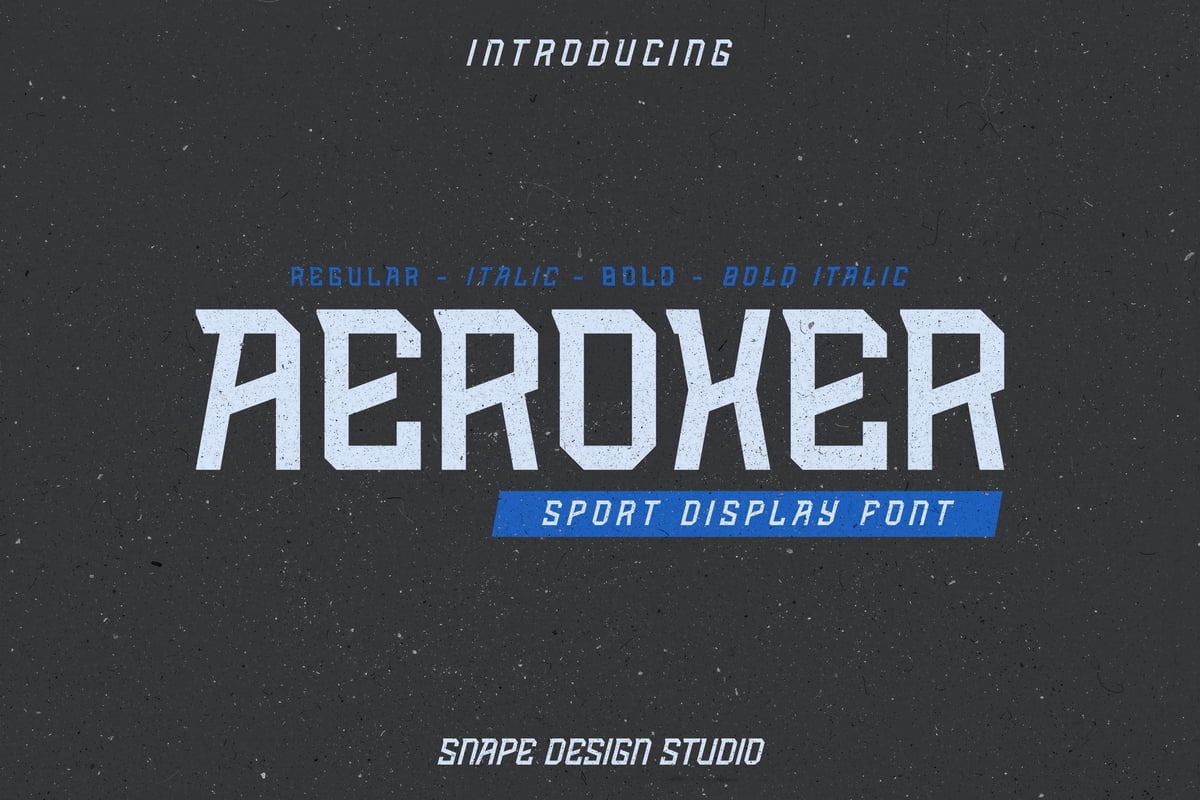
Aeroxer - Sport Font
Command attention with Aeroxer, the dynamic sport font engineered to amplify your boldest creative projects. This powerful typeface delivers the vibrant energy your sport-inspired designs demand. Whether you're crafting team jerseys, league branding, or championship graphics, Aeroxer transforms ordinary text into commanding visual statements. Perfect for sport design projects, team identity, jersey numbering, league logos, movie titles, documentaries, film credits, brand logos, dynamic posters, ...